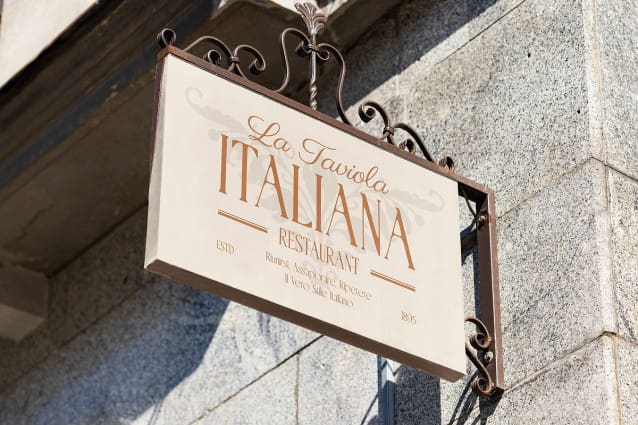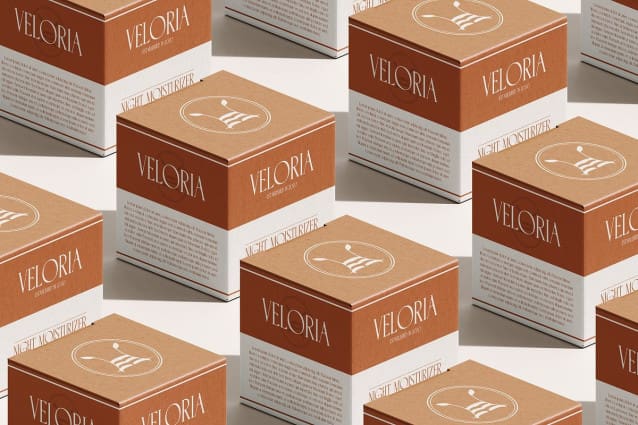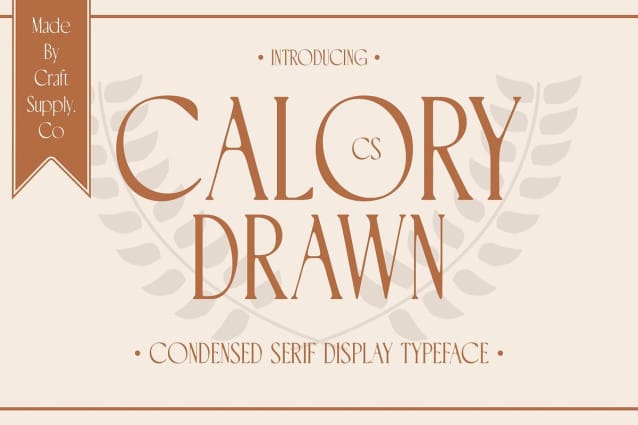
CS Calory Drawn Font
CS Calory Drawn Font is a modern serif font characterized by its minimalist and clean condensed shape, exuding an air of elegance that is perfect for contemporary design aesthetics. The sharp lines and streamlined proportions offer a sleek look, making this font an exceptional choice for projects that require clarity and sophistication. Its design balances form and function, ensuring that the text remains easily readable while making a striking visual statement.
Artistic Drawn Effect for a Personal Touch Wrapped in a unique drawn effect, this font infuses each character with an artistic flair that enhances its visual appeal. This effect adds warmth and personality, creating a more inviting and relatable impression. The handmade quality of the drawn effect not only differentiates it from other typefaces but also gives it a distinctive character that resonates with audiences.
Versatile Applications for Stylish Projects The versatility of this drawn font shines in various applications, from branding and advertising to editorial design and packaging. Its elegant yet modern appearance ensures that it is suitable for diverse projects, whether you’re designing upscale branding materials, chic invitations, or polished editorial layouts. This font adapts seamlessly to different contexts while maintaining a stylish presence.